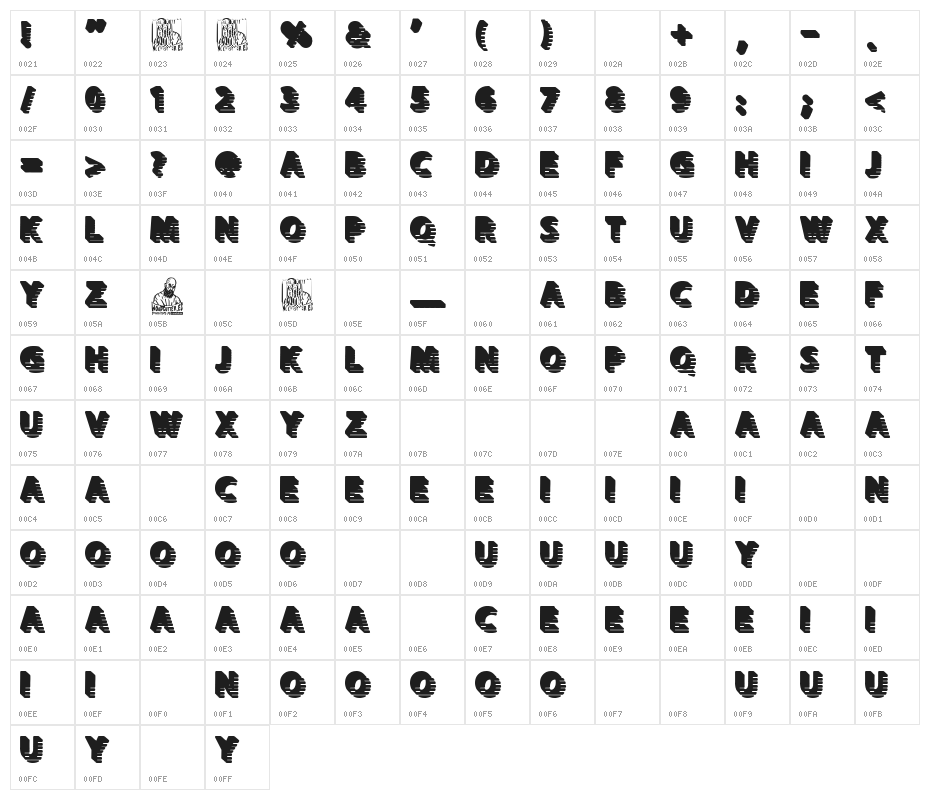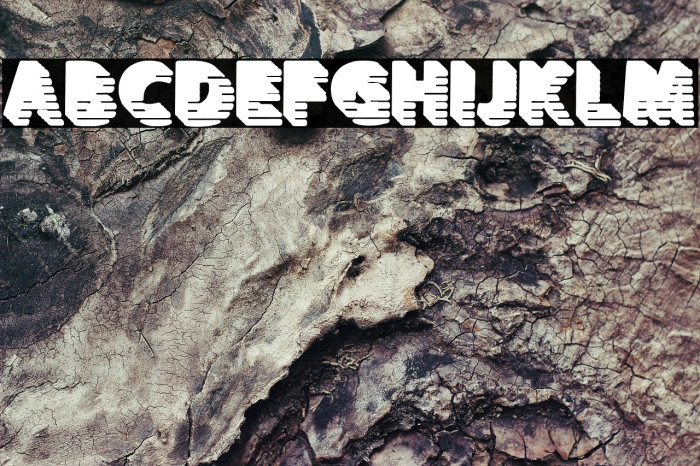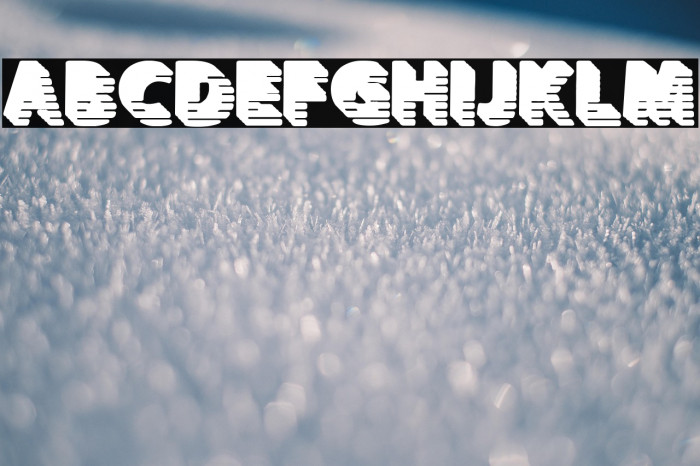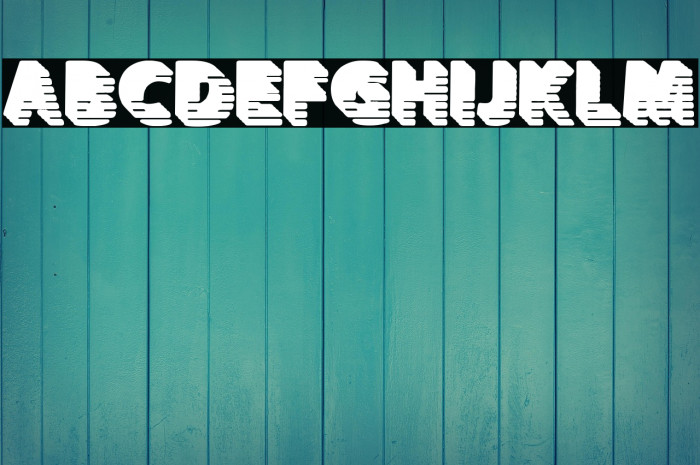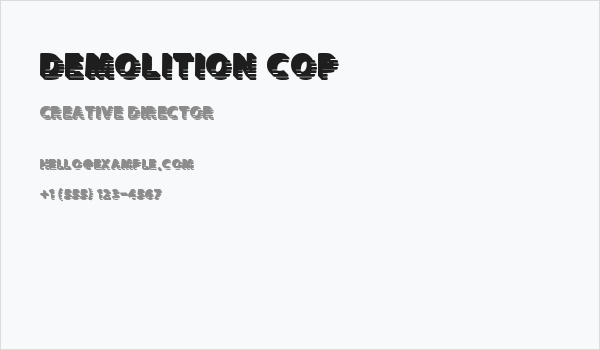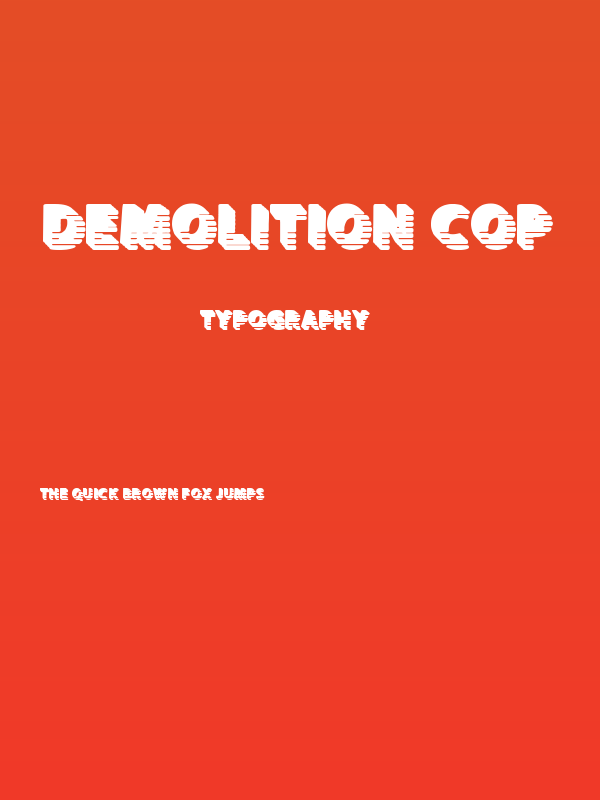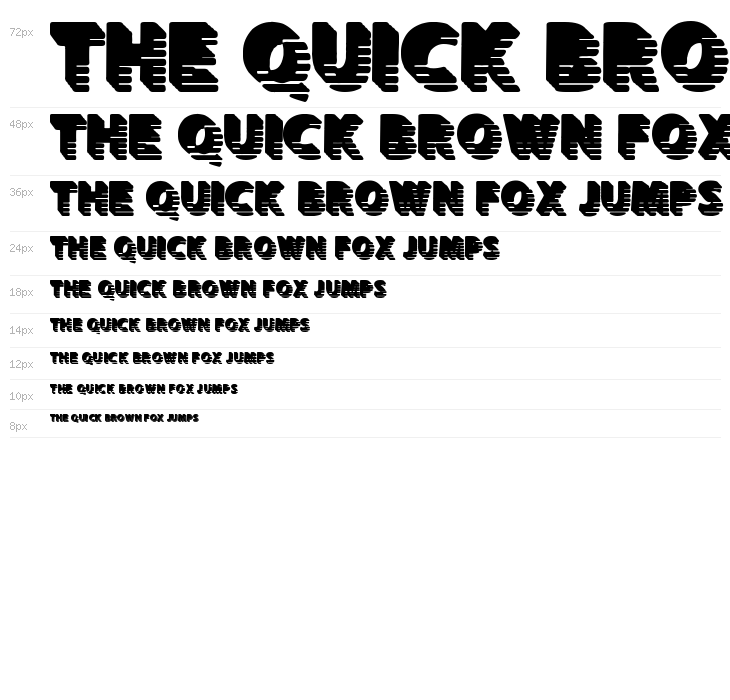
Demolition Cop Font
Demolition Cop Description
This font features a bold, impactful design with a unique distressed effect that gives it a rugged, industrial feel. The characters are thick and heavy, with a shadow-like pattern that adds depth and dimension. The uppercase and lowercase letters maintain a consistent style, while the numbers and special characters complement the overall aesthetic. This font is designed to stand out, making it ideal for attention-grabbing headlines or titles. Its distinctive look is reminiscent of urban or street art, with a modern twist that makes it versatile for various creative projects.
| Overall Style | Modern, Urban, Industrial |
| Proposed Projects | Ideal for posters, album covers, streetwear branding, and urban-themed designs. |